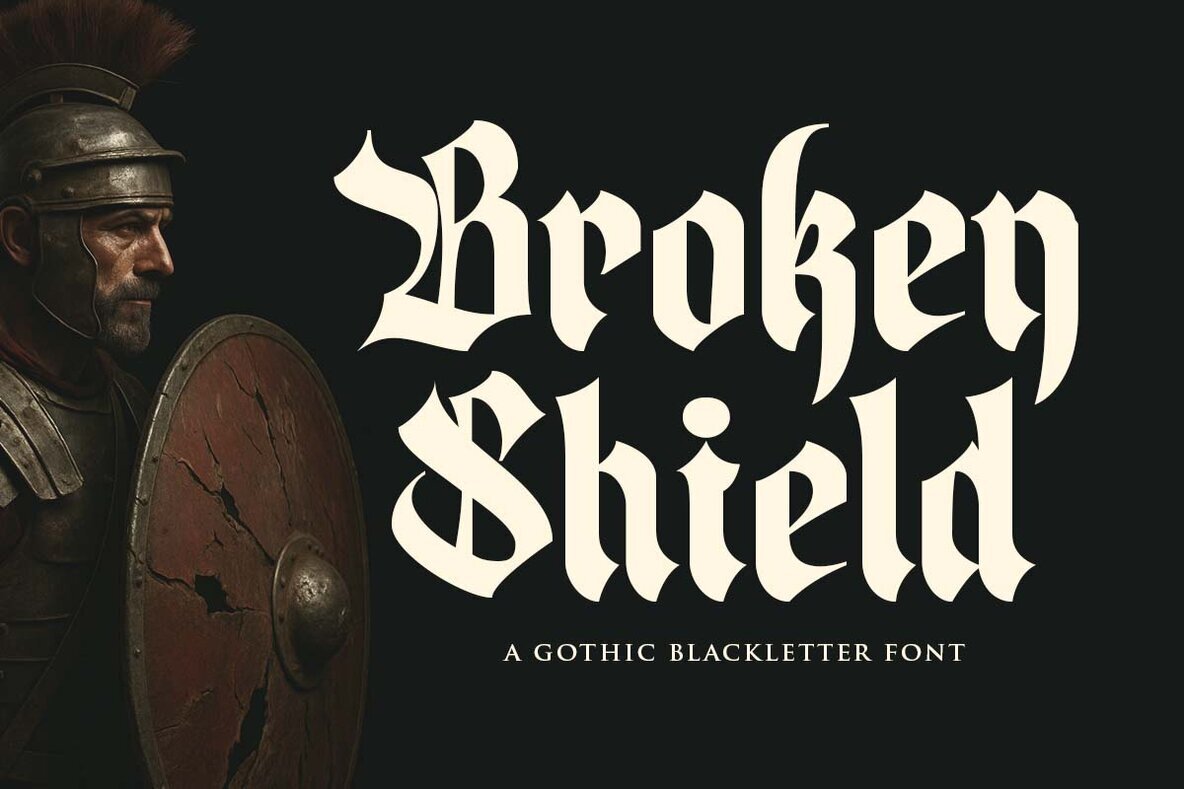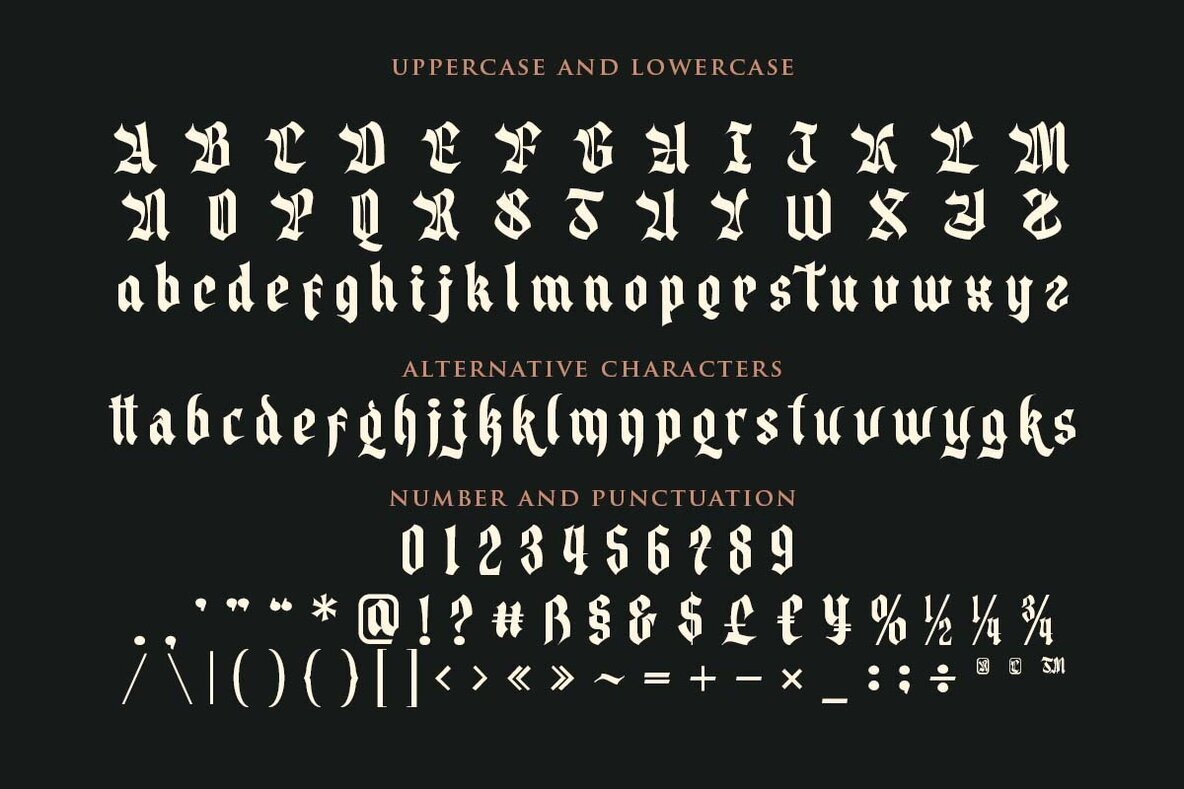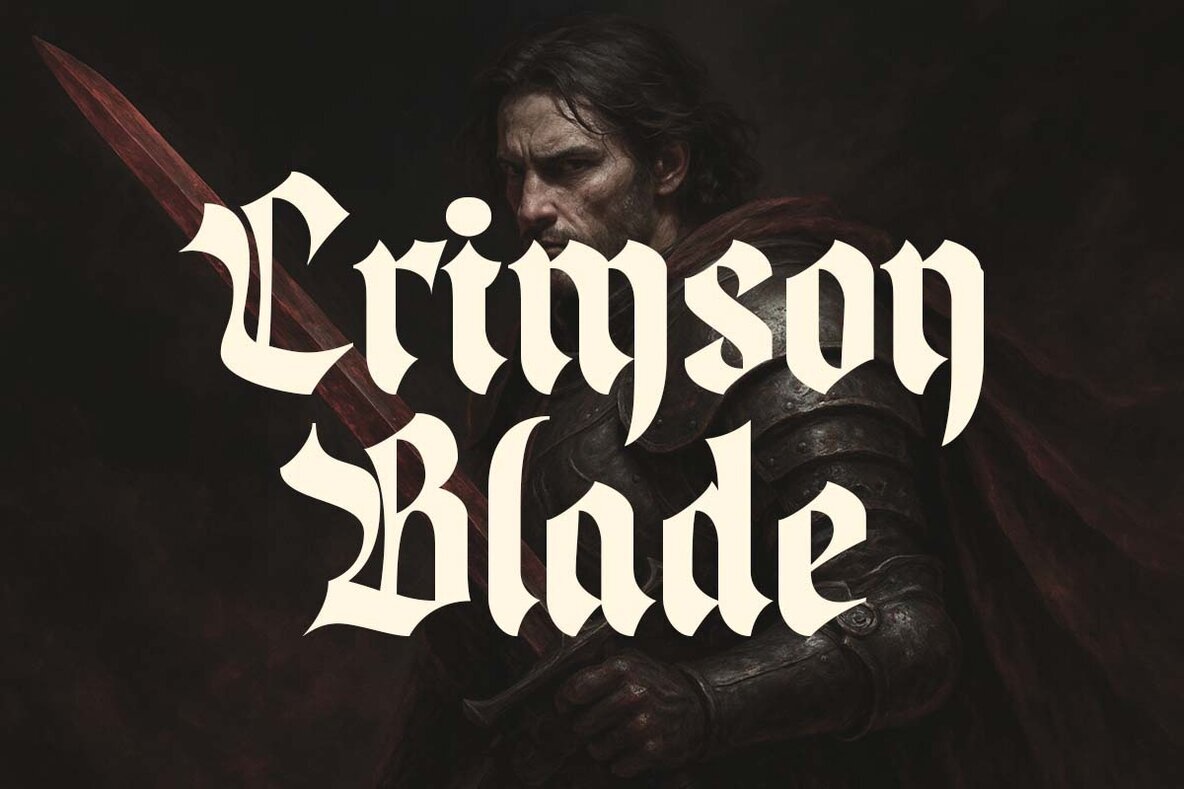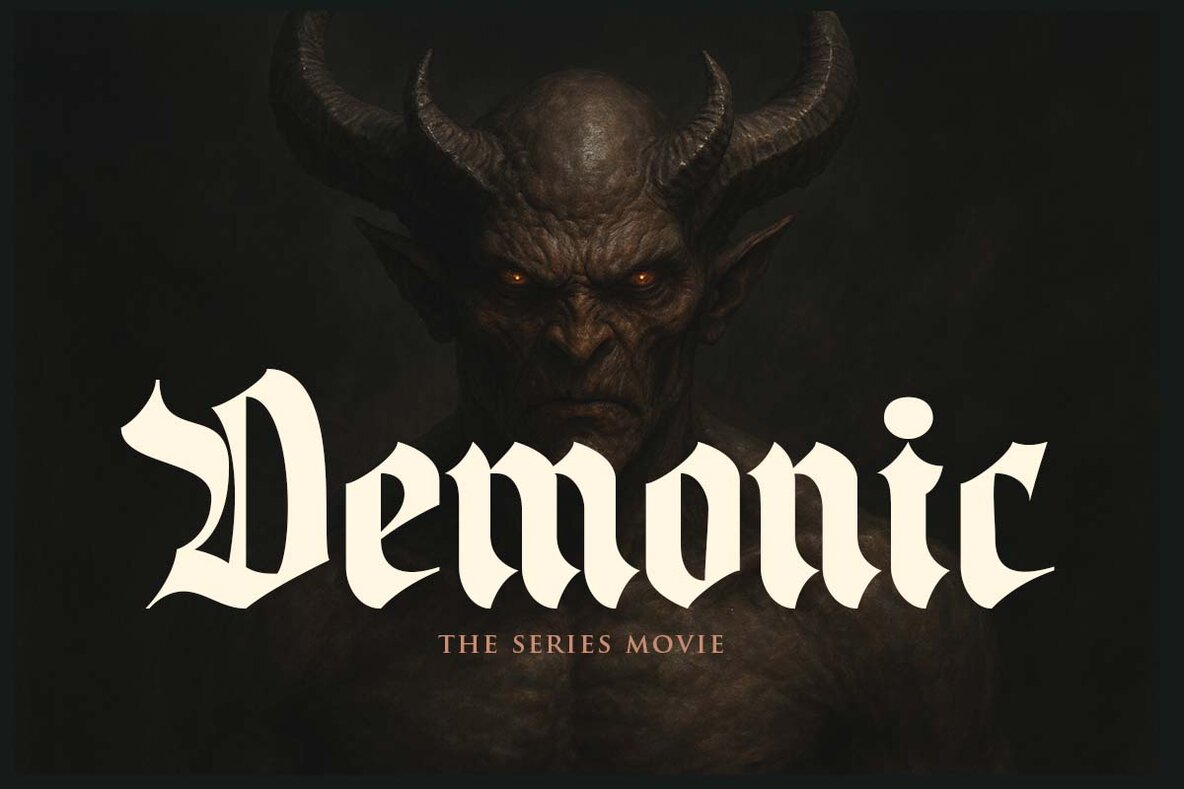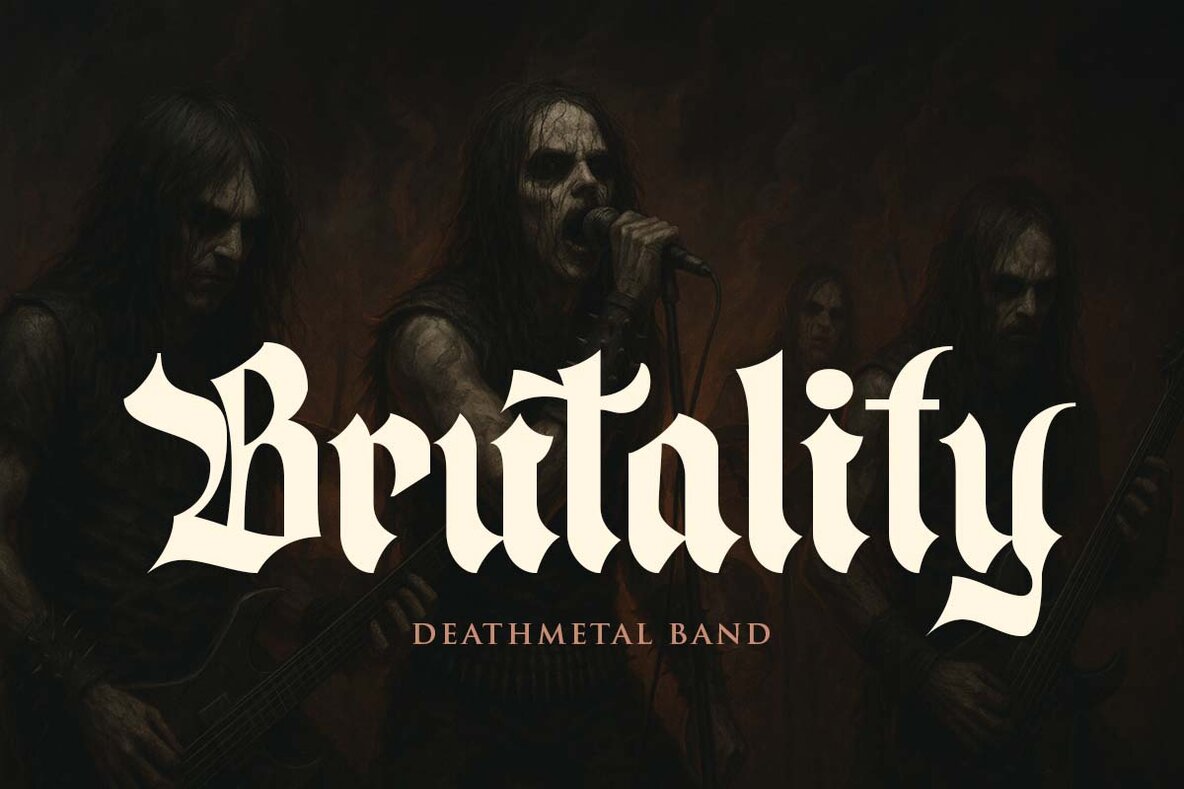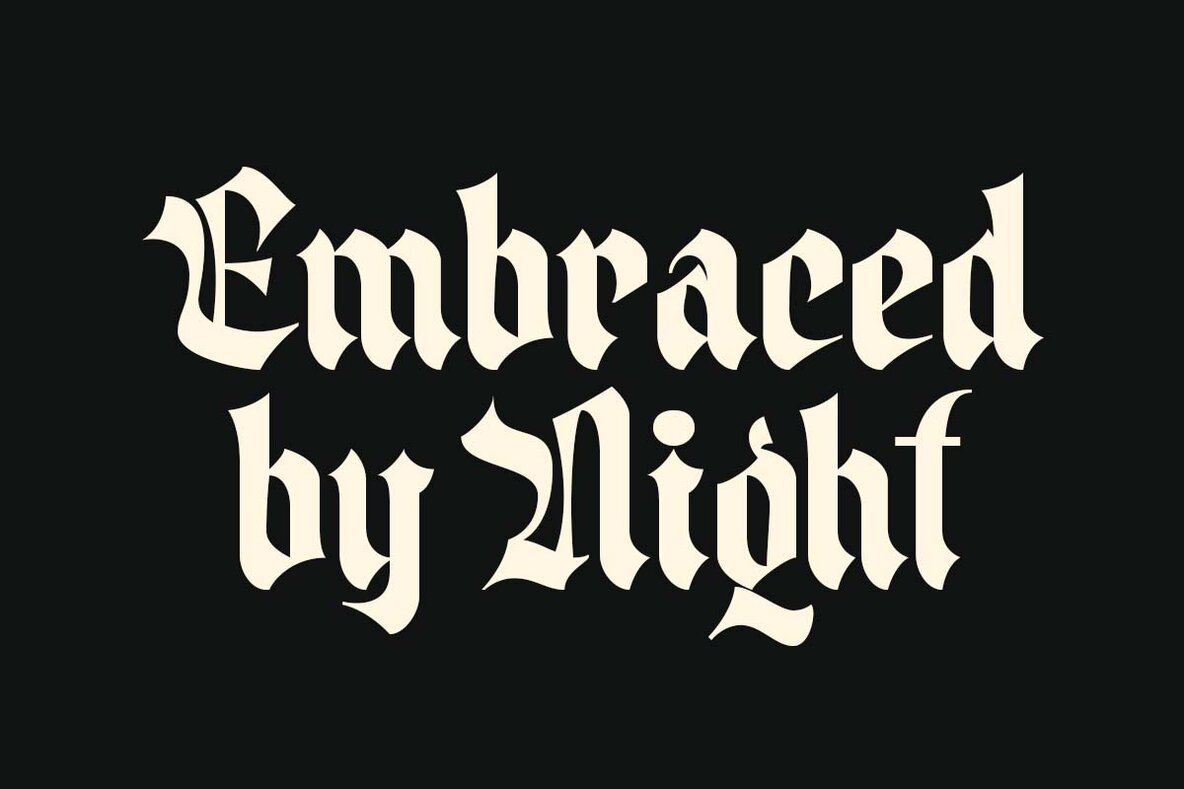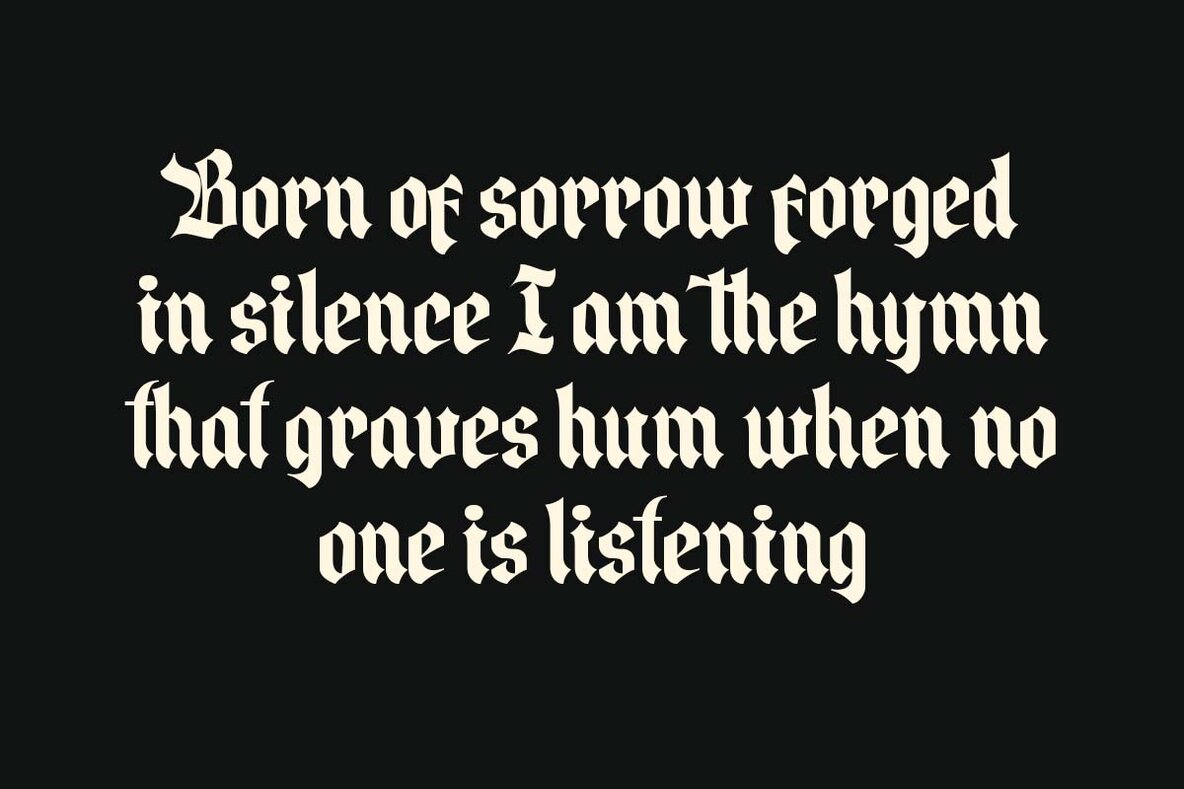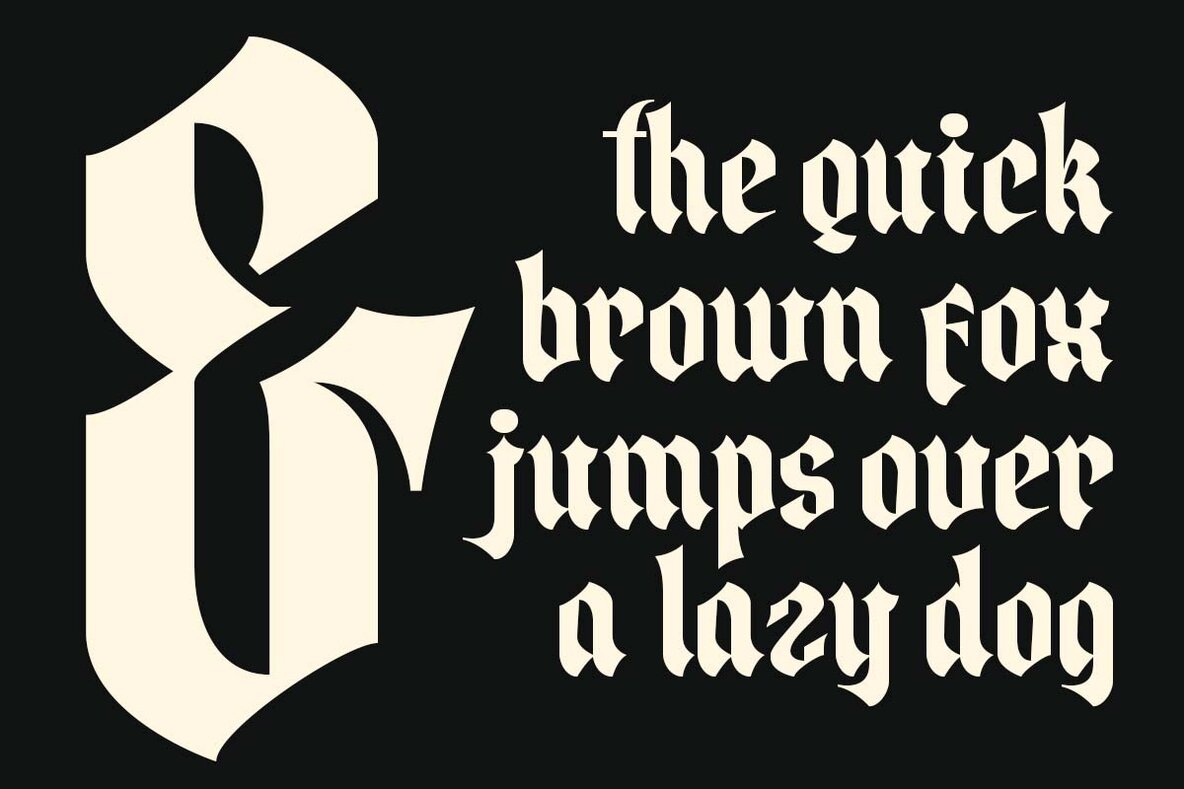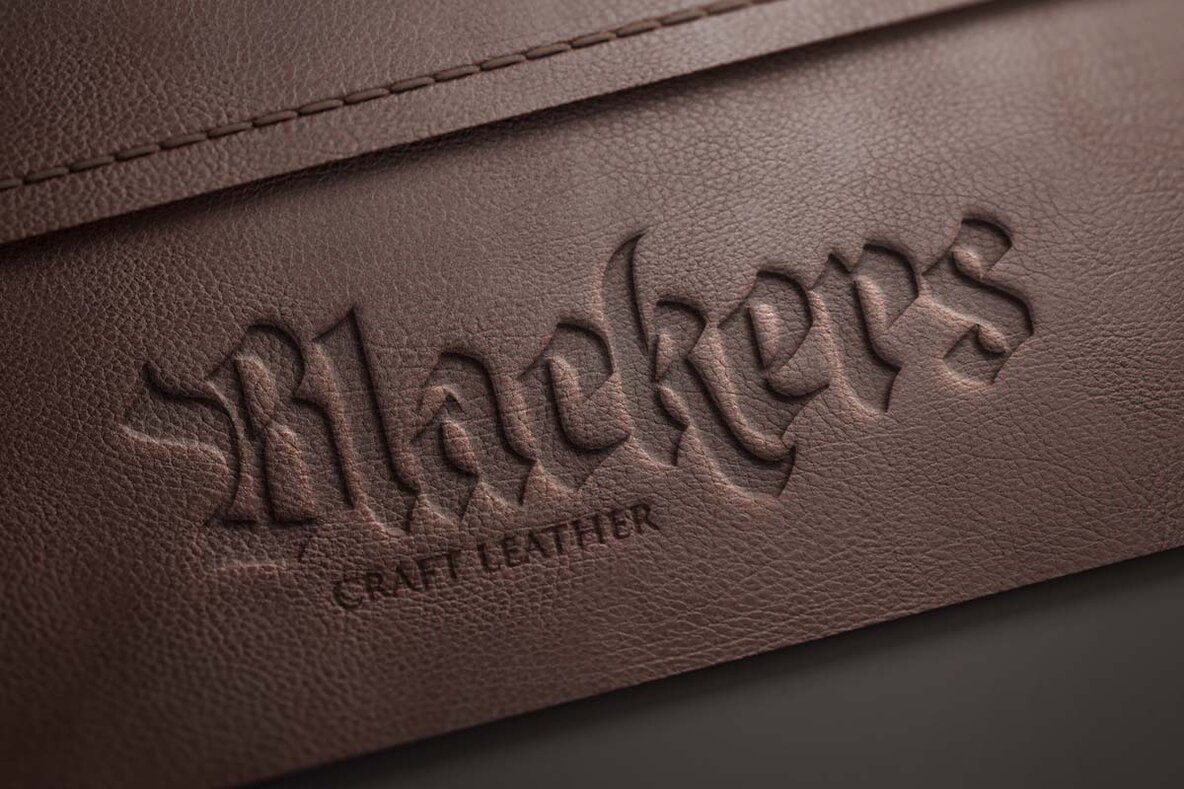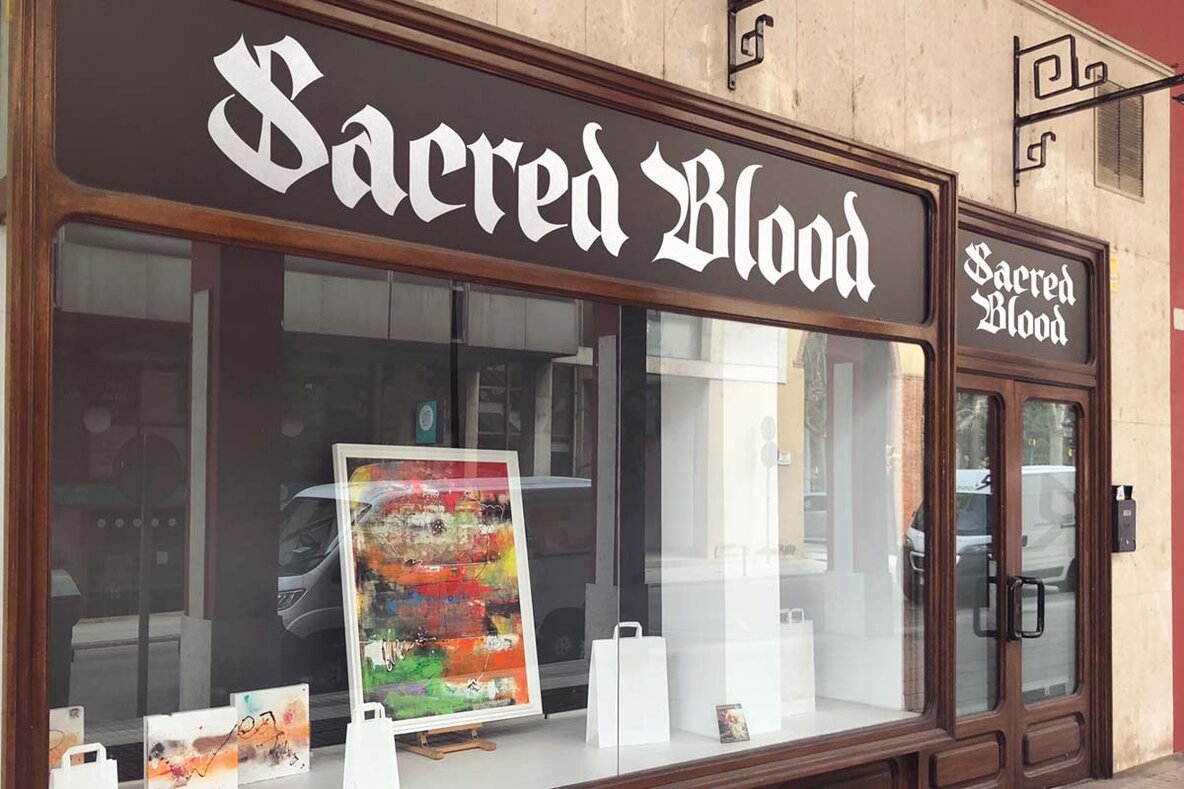
Broken Shield Font
Broken Shield Regular
Unleash the bold and historic charm of Broken Shield, a Gothic Blackletter font crafted by Blankids Studio. Tailored for professional branding projects, it’s ideal for logotypes, watermarks, posters, promotions, and product packaging. This font’s intricate blackletter style makes a captivating impact in any design. Enhance your creative projects with Broken Shield’s Gothic elegance, perfectly suited for both modern and traditional themes. Compatible with popular design programs like Canva, Adobe Illustrator, Photoshop, and InDesign, this font is your ultimate tool for impactful design. Explore the previews, get inspired, and enjoy your next masterpiece!Introducing Broken Shield Font
Features of Broken Shield Font